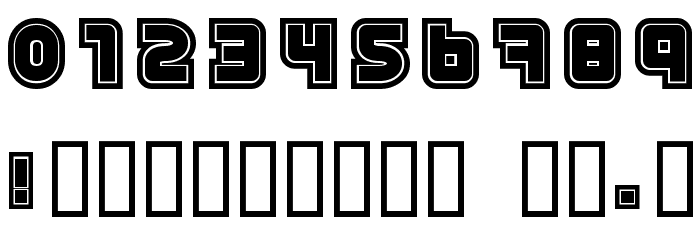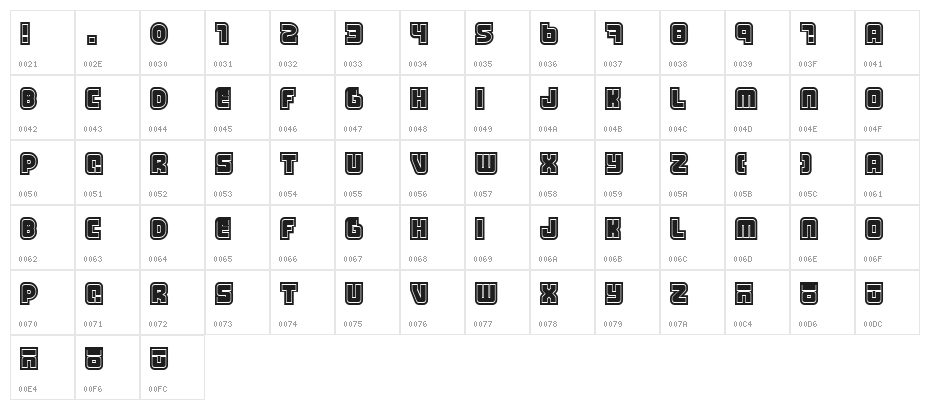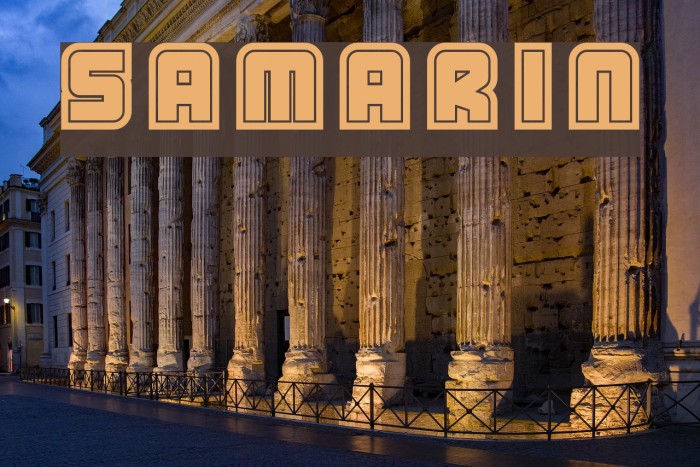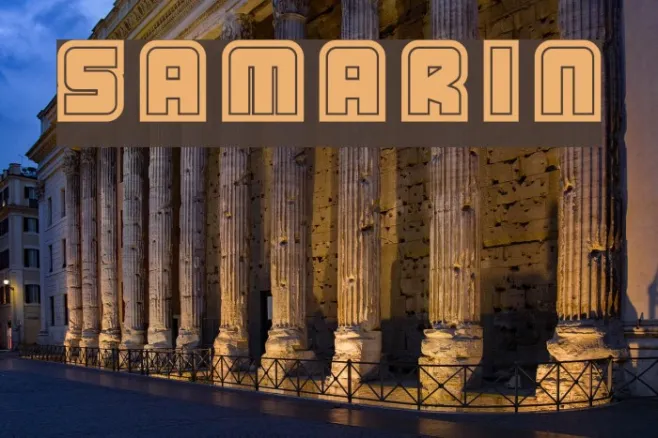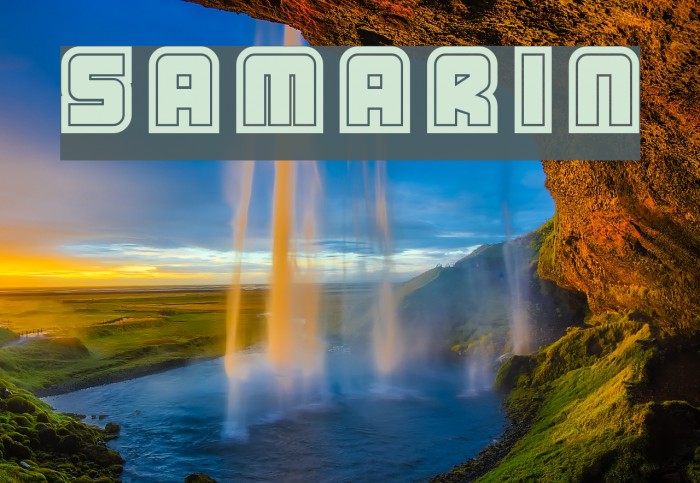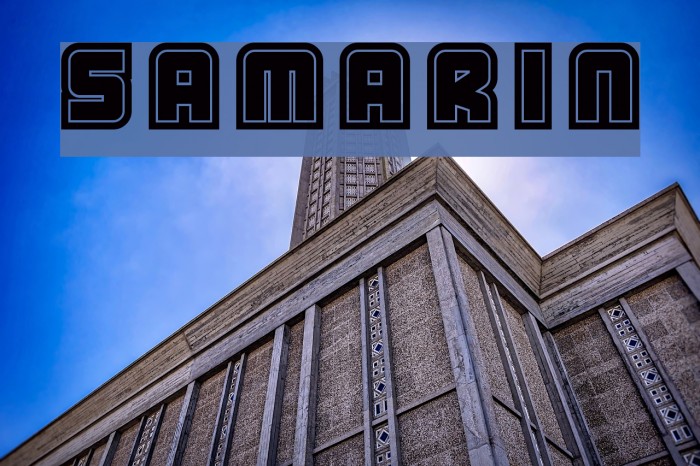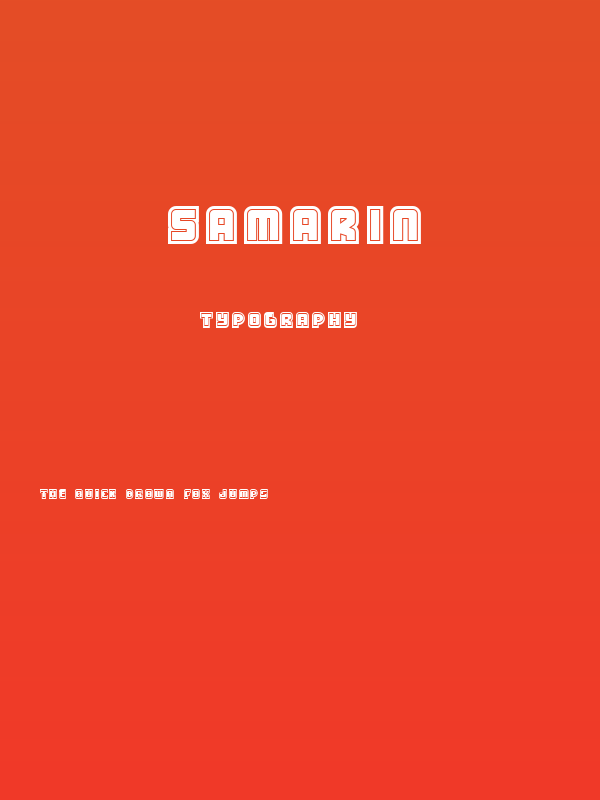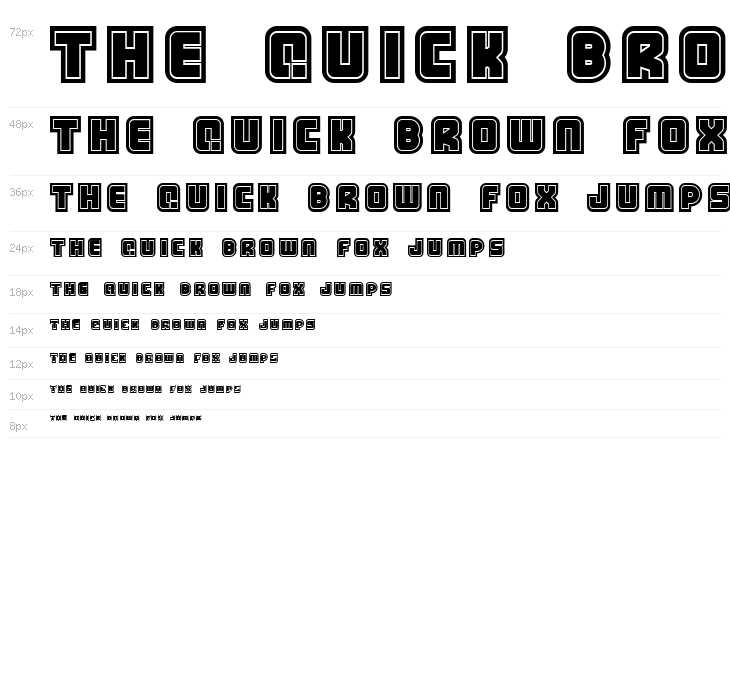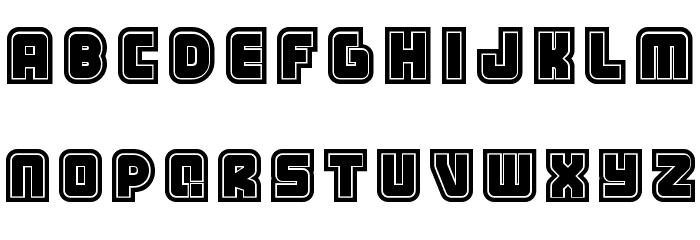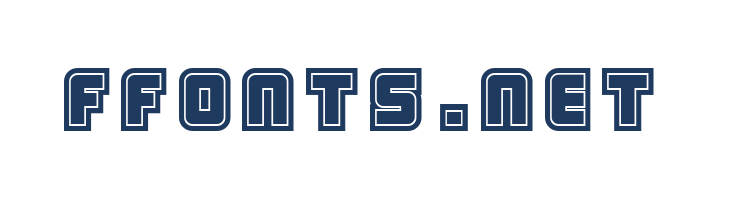
samarin Font
samarin Description
This font features a bold, geometric design with a distinct outline that gives it a three-dimensional appearance. The characters are blocky and uniform, with rounded corners that soften the overall look. The uppercase and lowercase letters maintain a consistent style, making the font cohesive and easy to read. The numbers and special characters follow the same design principles, ensuring a harmonious appearance across all glyphs. The font's unique style makes it stand out, while its clear structure ensures legibility.
| Proposed Projects | Ideal for projects that require a strong visual impact, such as posters, logos, and headlines. Its distinctive style can also be used in branding and packaging design to create a memorable impression. |